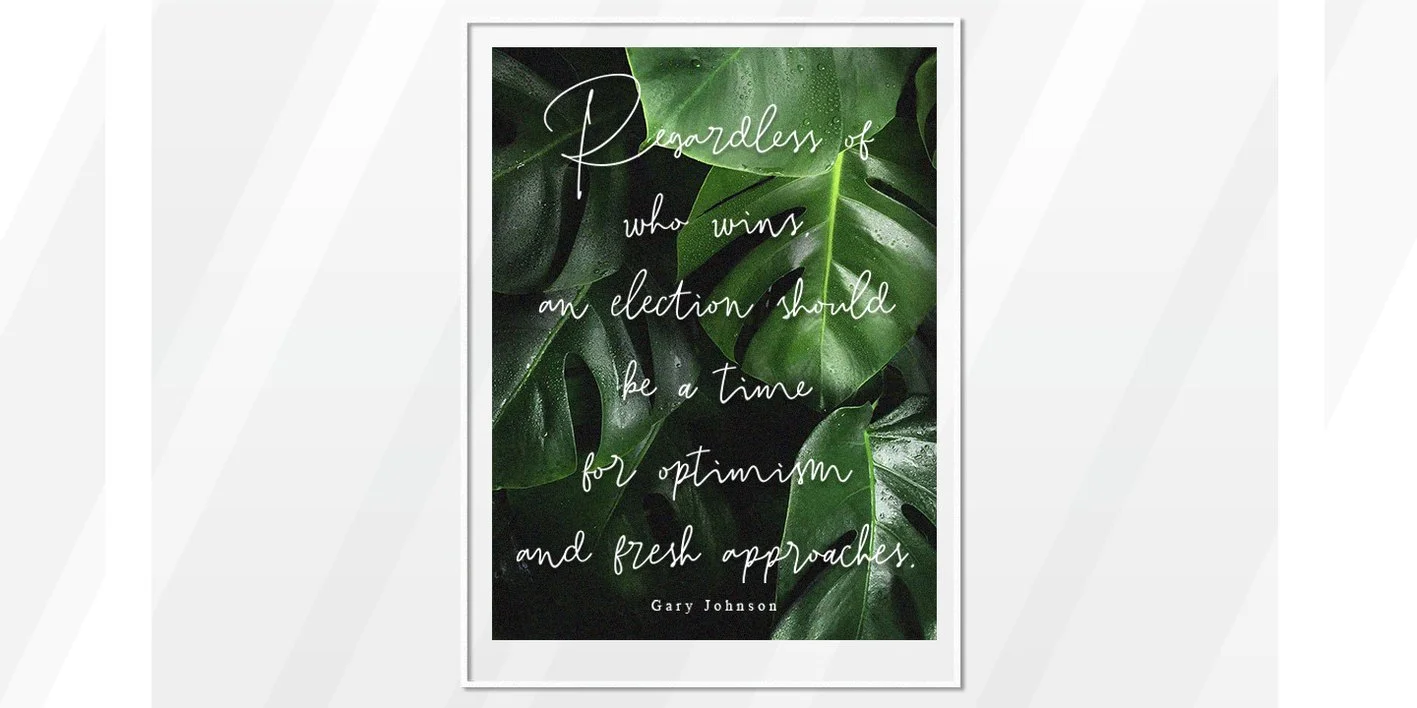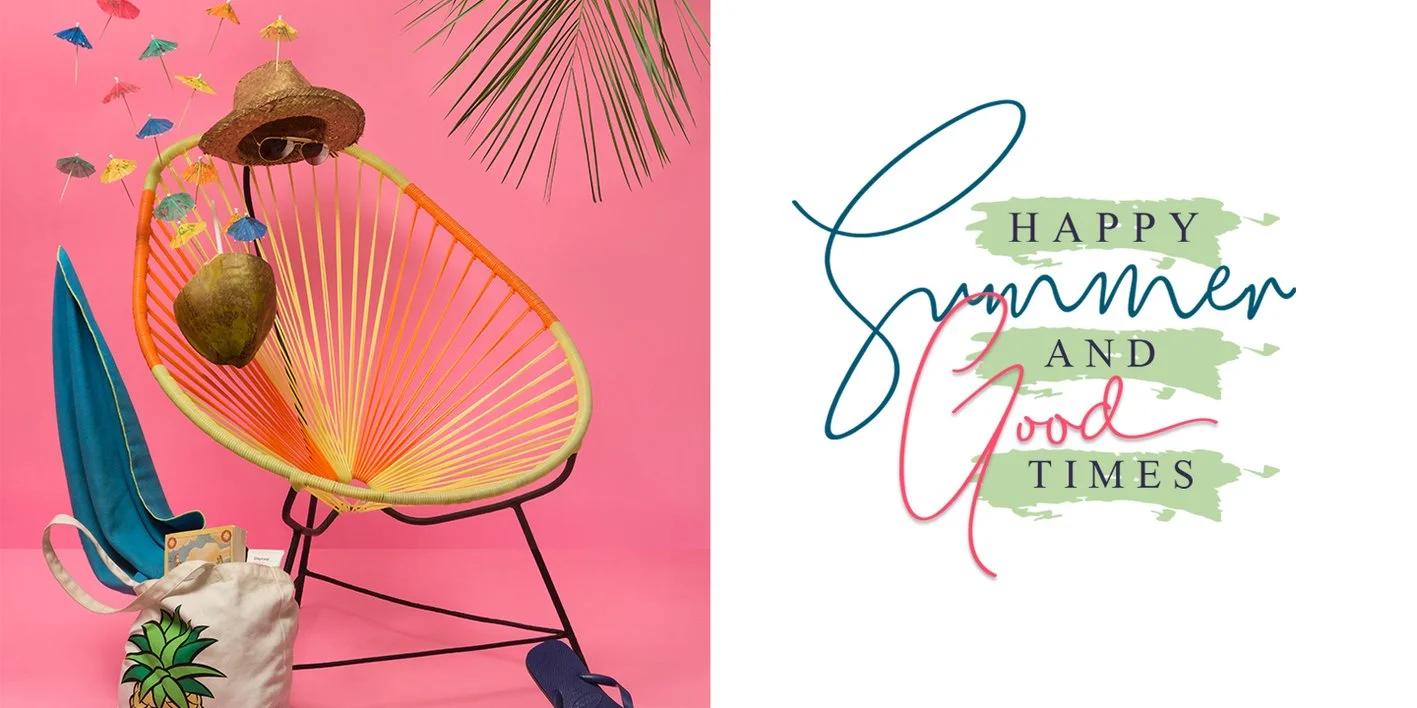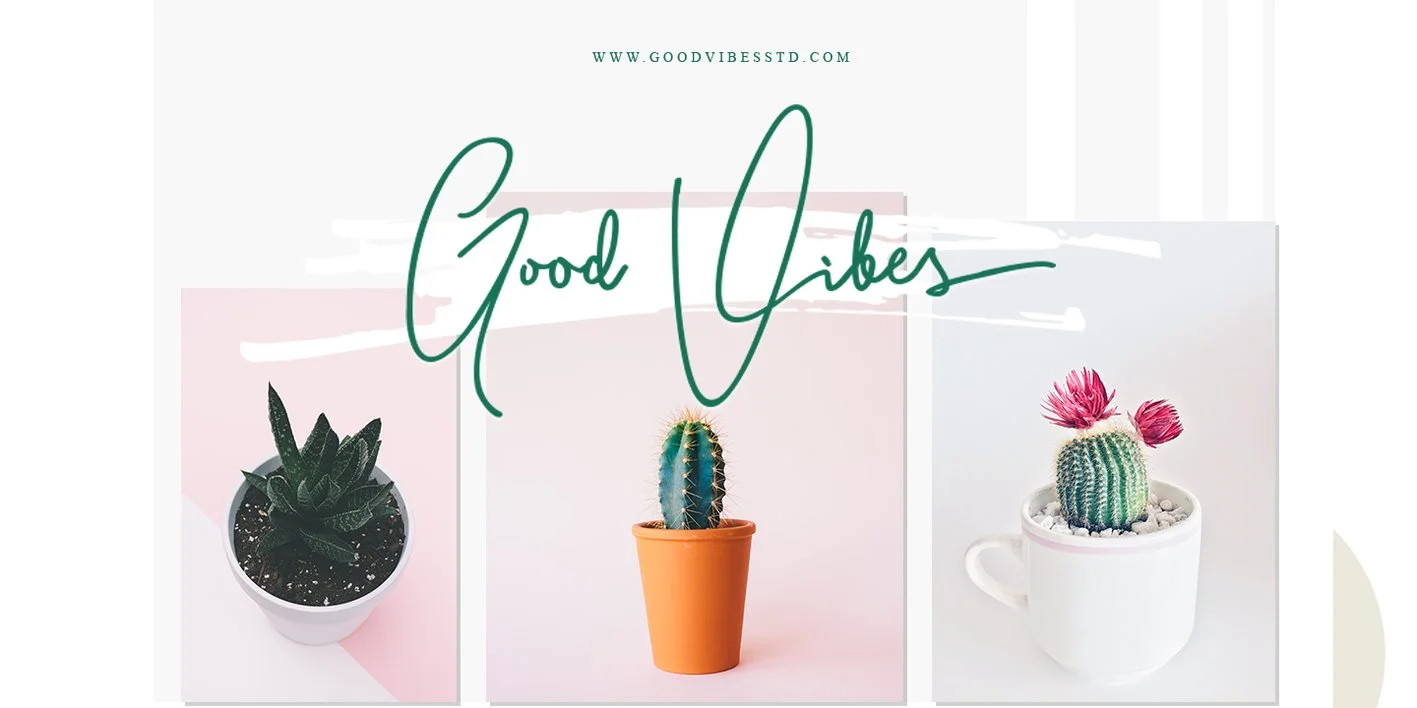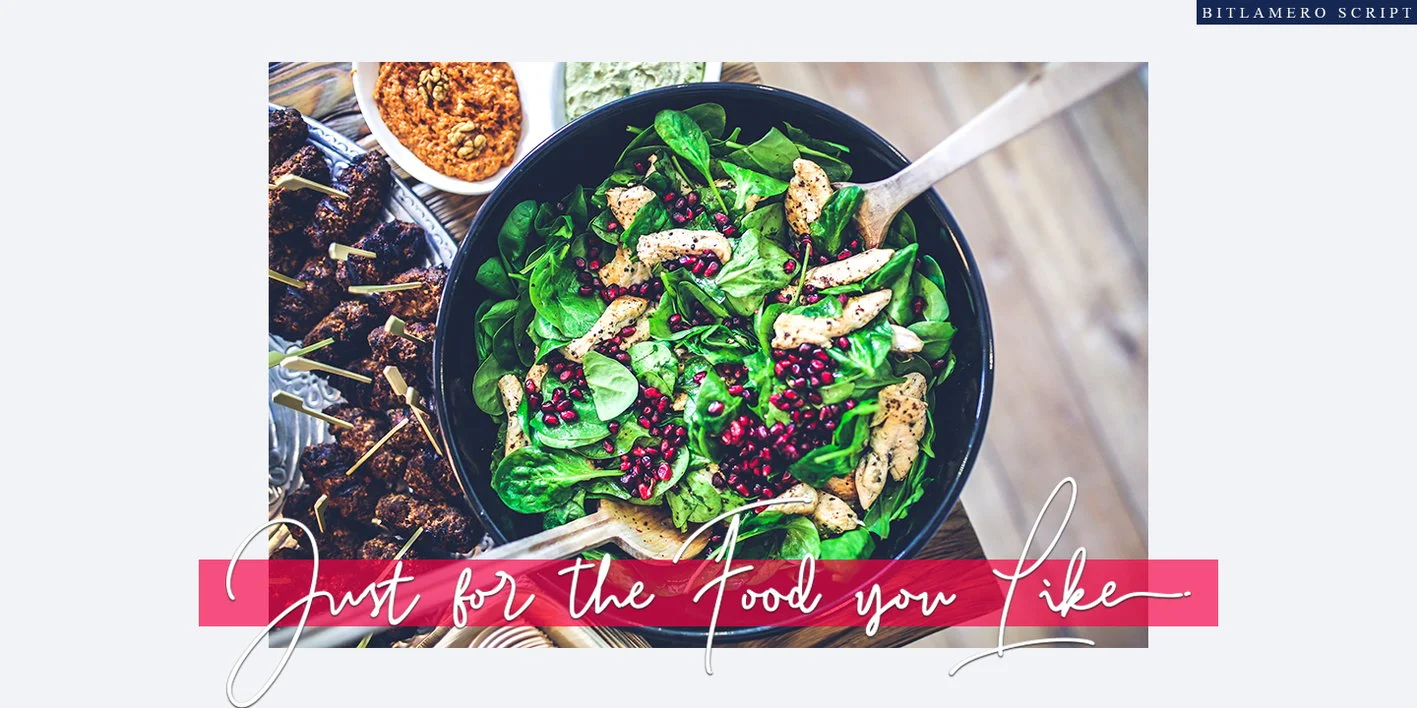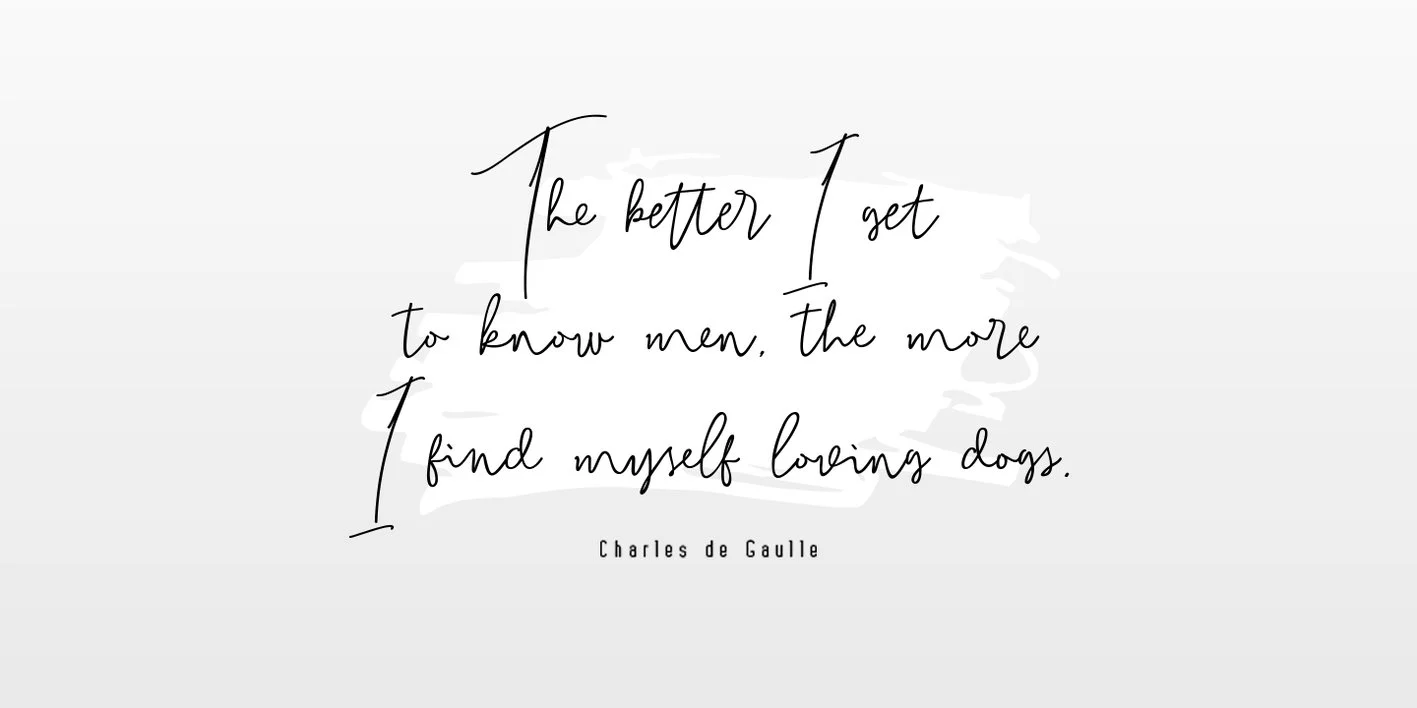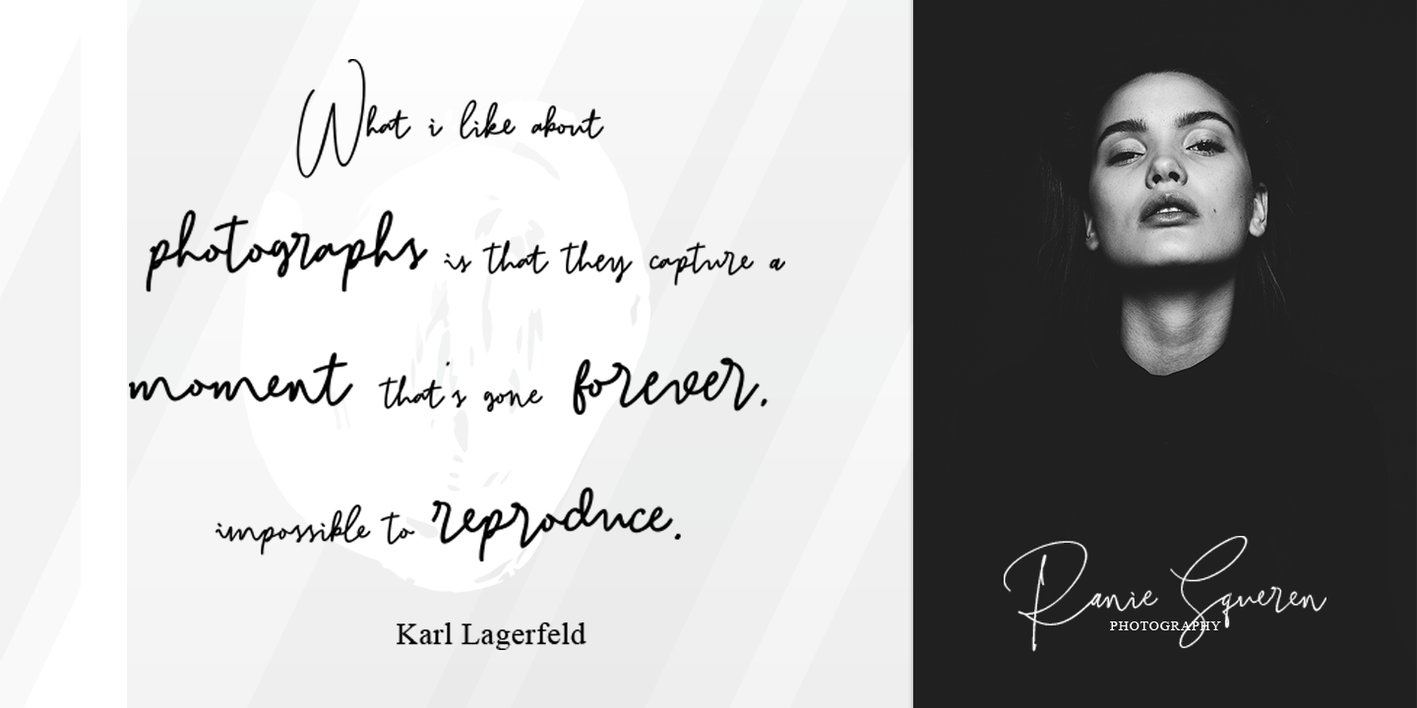
Bitlamero Script Font
Bitlamero Script is a handwritten signature typeface that comes with more than 389 stylistic ligatures. Its classy energetic look makes it the perfect fit for feminine logos, printed quotes, invitation cards, social media headers, product packaging and a lot more! Files Included: - Bitlamero Script.otf - Bitlamero Slant.otf - Bitlamero Bold.otf - Bitlamero Bold Slant.otf Characters included: - Basic Latin A-Z and a-z - Numbers - Symbols - Stylistic Set - Ligature - PUA Encode - Multilanguage Support To enable the OpenType Stylistic alternates, you need a program that supports OpenType features such as Adobe Illustrator CS, Adobe Indesign & CorelDraw X6-X7. There are additional ways to access alternates, using Character Map (Windows), Nexus Font (Windows), Font Book (Mac) or a software program such as PopChar (for Windows and Mac). For use in office word, you all can read the following article.